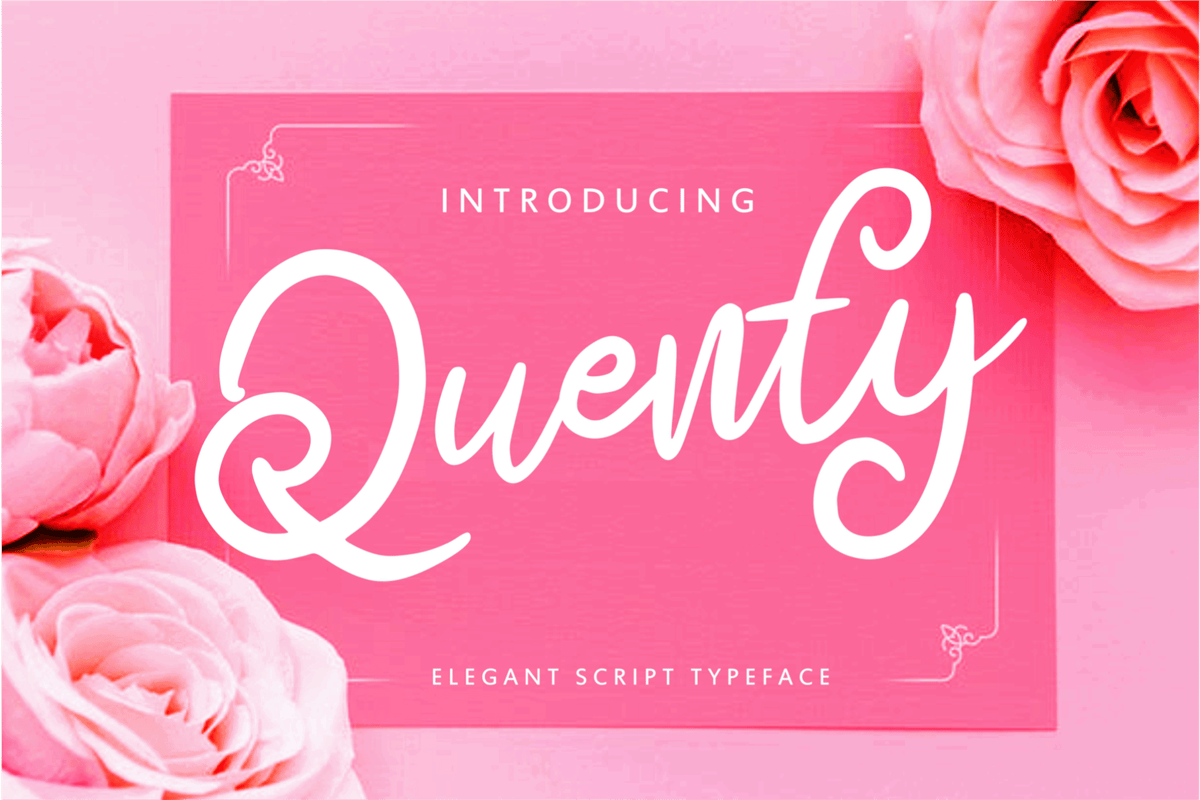
Quenty is a lush, flowing script typeface built for designs that demand elegance and charm.
Whether you're crafting wedding invitations, branding materials, greeting cards, business cards, quotes, or posters, Quenty's graceful letterforms bring a polished, sophisticated feel to any project.